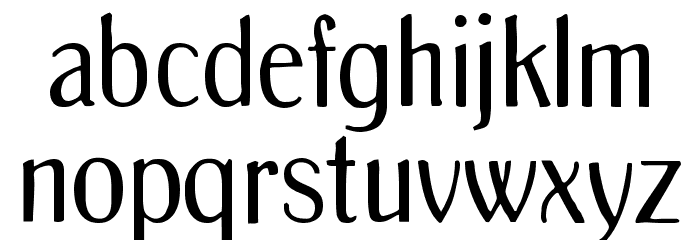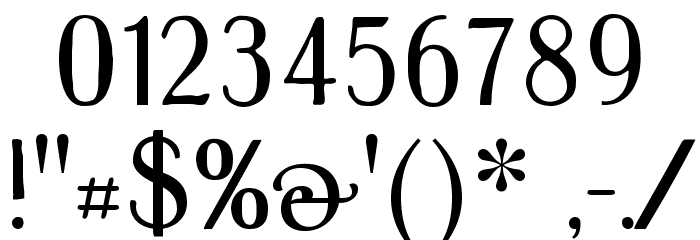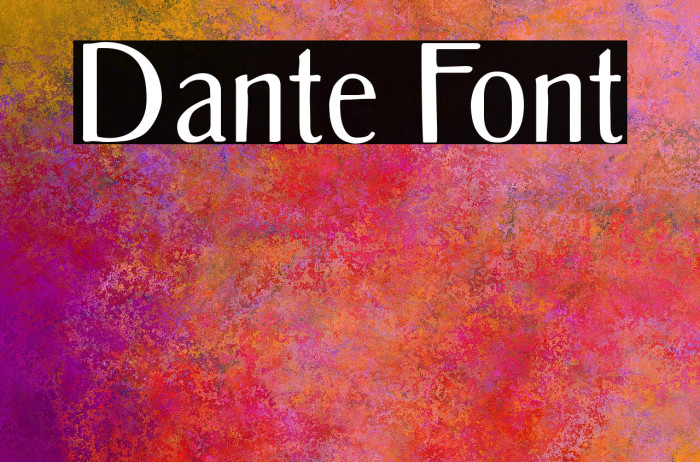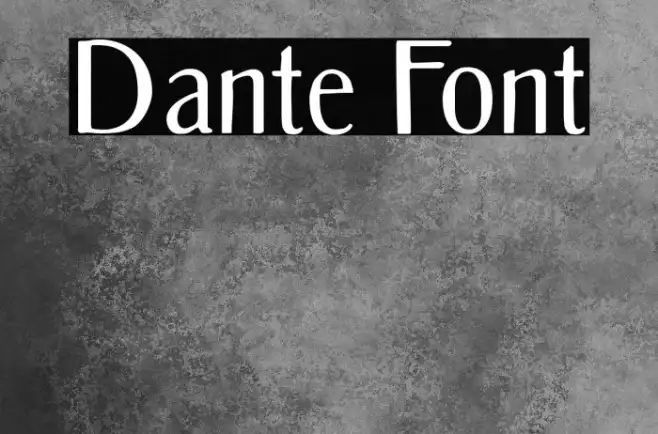
Dante Font
This font exhibits a classic serif style with a modern twist, characterized by its elegant and slightly elongated letterforms. The uppercase letters are distinct with sharp serifs and a balanced weight distribution, giving them a refined and sophisticated appearance. The lowercase letters maintain a consistent style, with smooth curves and a slight contrast in stroke thickness that adds to the overall readability. The numerals are clear and well-proportioned, making them suitable for both display and text settings. Special characters are thoughtfully designed, maintaining the font's cohesive aesthetic. The font's versatility makes it suitable for a wide range of applications, from editorial design to branding.
A classic serif font with modern elegance and refined letterforms.
- Font: Dante
- Proposed Projects: Ideal for editorial design, book covers, branding, and sophisticated print materials.
- Category: Serif
- Overall Style: Classic